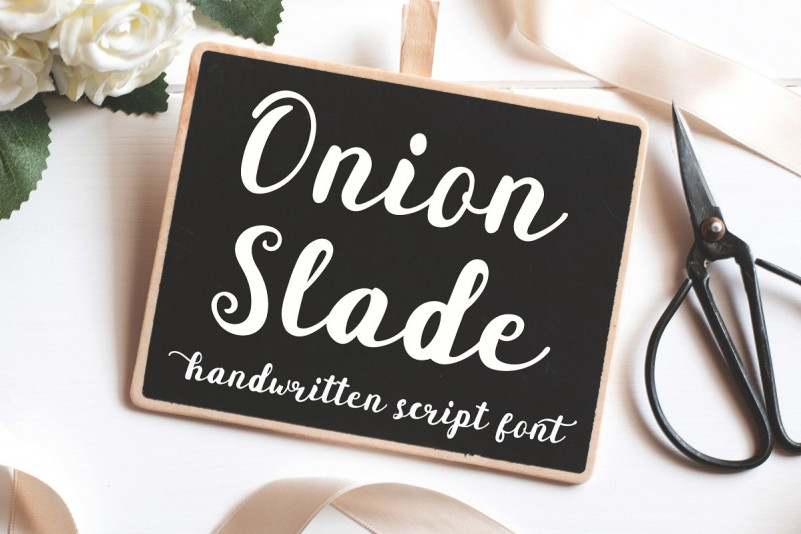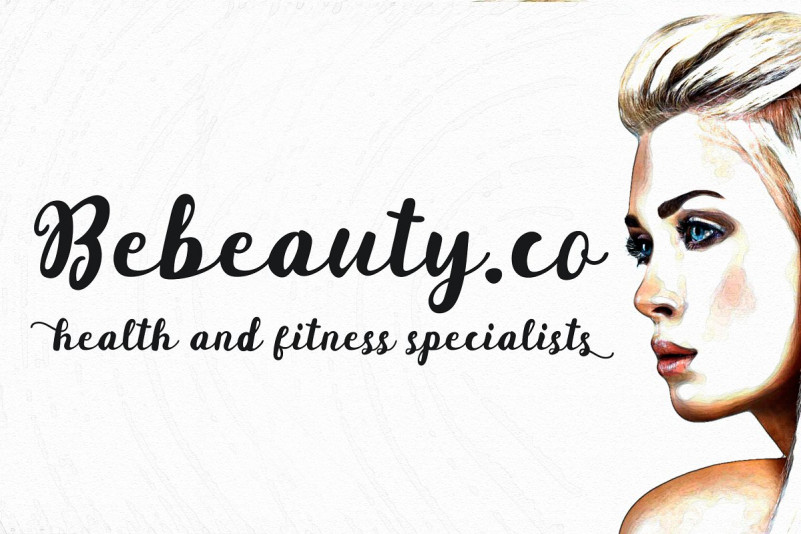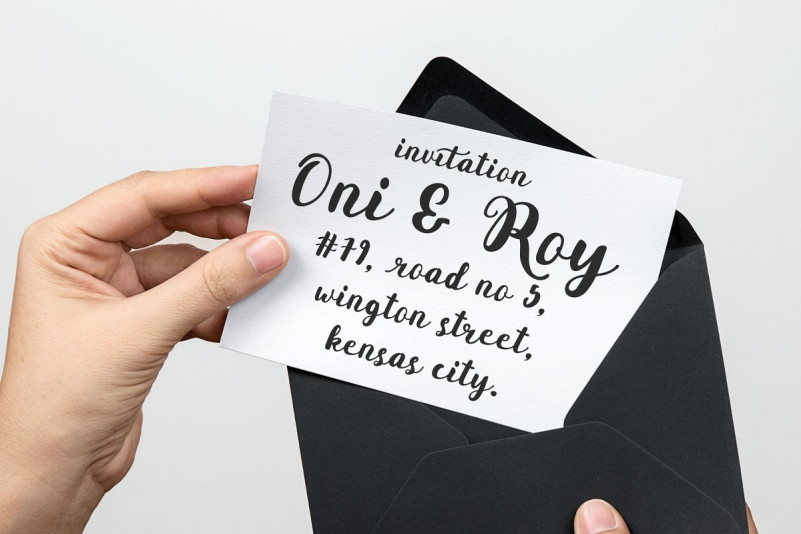
Onion Slade Font
Introducing Onion Slade – Brush Script Font, handwritten with large brush pen. beautiful font for crafts, branding, invitations, cloths design and many more.